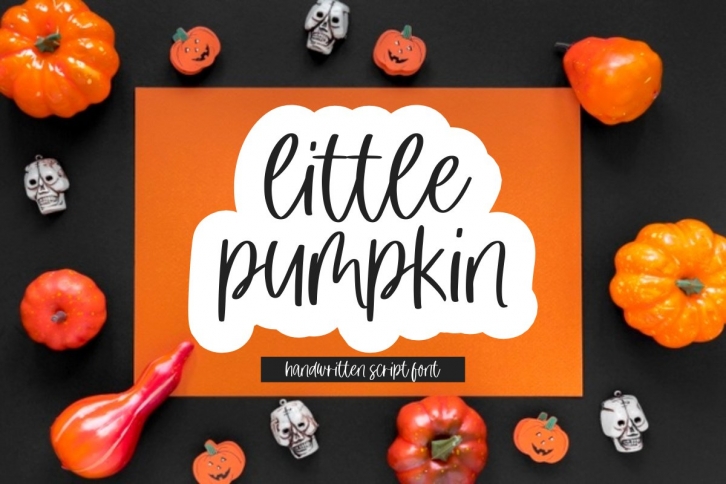
little pumpkin is a beautiful font that was designed by fikryal. It's a great choice for designers and creatives who need such a font. It was released on September 13, 2020 and the file size is 6.70 MB. little pumpkin may give a more youthful, expressive and casual look to your project. It is a very beautiful, refined, elegant, and high-quality font.